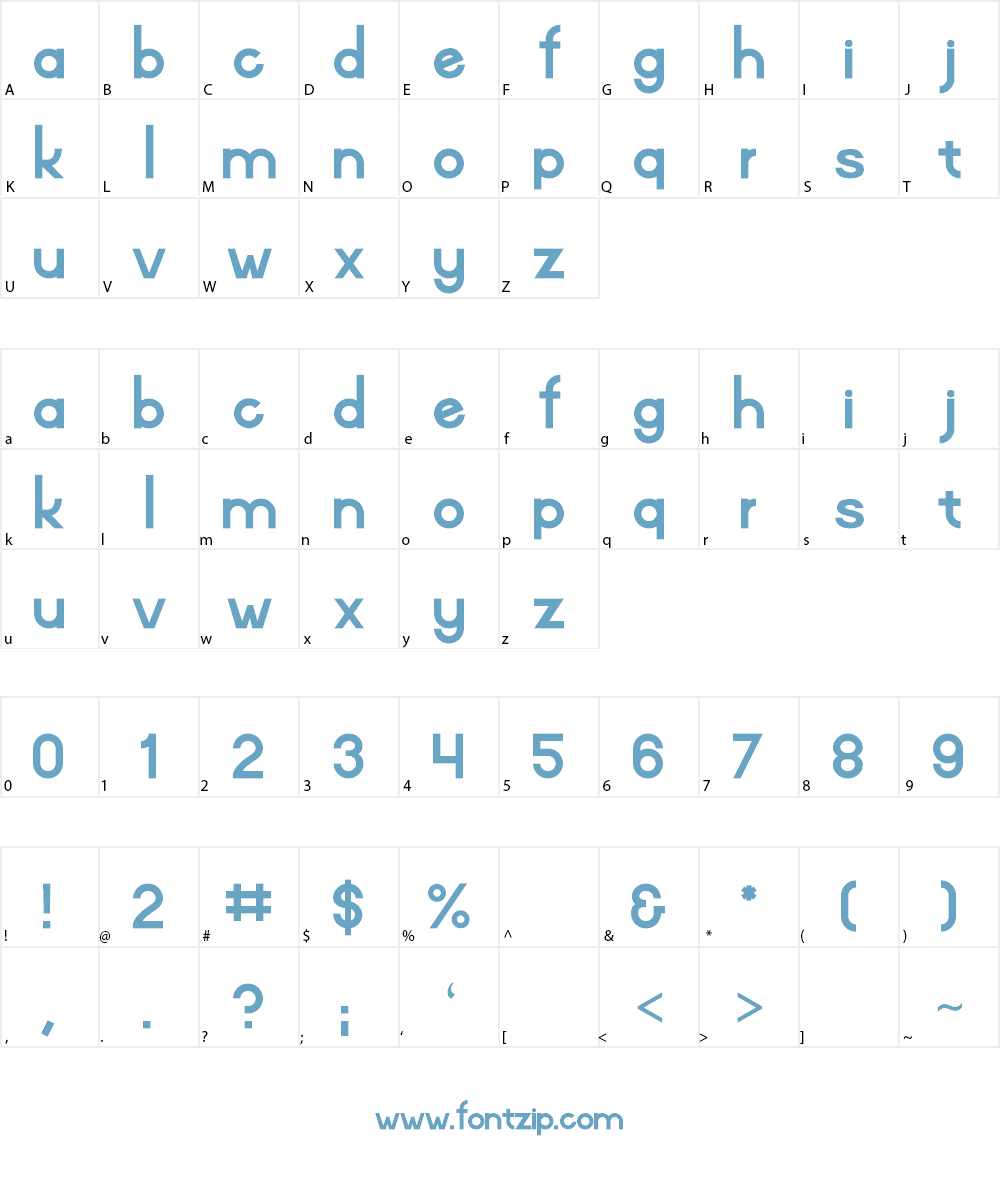
The font "Digital Video" almost is exactly like the letters "C", "D", and "V" in the logo. This font was also modeled off of "Lyons" made by Daniel P. Lyons.